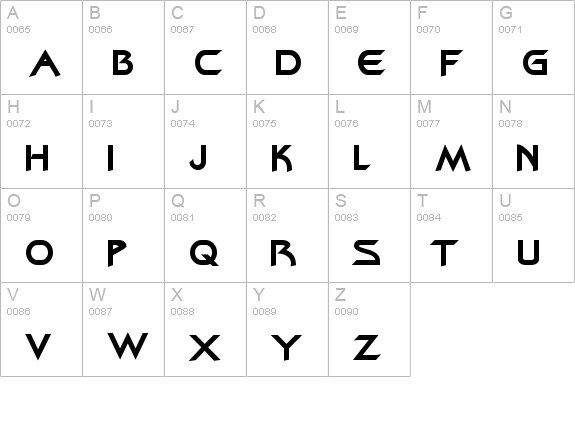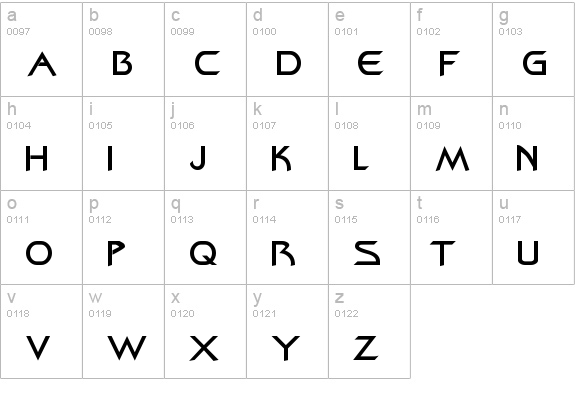
Federation DS9 Title Font Details
The Federation DS9 Title font is a sleek and futuristic typeface that embodies the spirit of exploration and adventure. With its bold lettering and sharp angles, this font captures the essence of the Star Trek universe while adding a modern twist. Whether you're creating a sci-fi poster, designing a spaceship logo, or crafting a futuristic website, the Federation DS9 Title font is sure to make a bold statement. Best of all, this font is available for free download at FontsMarket.com, making it easily accessible for all your creative projects. Explore the stars and beyond with the Federation DS9 Title font today!